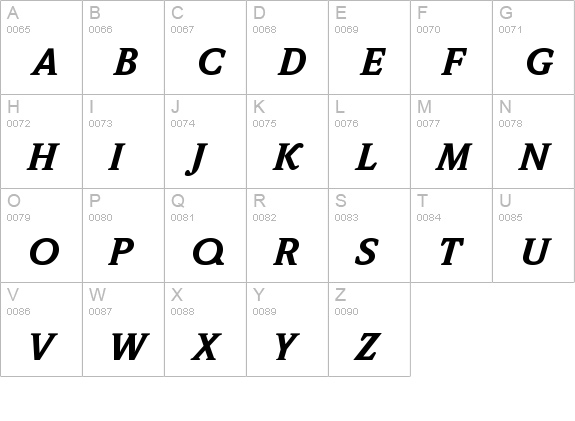
WeidemannEF-BlackItalic is a visually stunning and elegant font that exudes sophistication and elegance. Its unique and bold design is perfect for adding a touch of luxury and style to any project. This font features a captivating italic style that adds a sense of movement and flair to your text. The carefully crafted curves and slanted letterforms create a sense of dynamism and energy, making your words come alive on the page. WeidemannEF-BlackItalic is not only aesthetically pleasing but also highly legible, ensuring that your message is conveyed effortlessly. Its clear and well-defined letterforms make it easy to read, even at smaller sizes, making it ideal for various design projects. One of the best features of WeidemannEF-BlackItalic is that it is freely available to download at FontsMarket.com. This means that you can enjoy the beauty and versatility of this font without any cost. Whether you are a professional designer or simply someone who appreciates the art of typography, this font is a must-have in your collection. With WeidemannEF-BlackItalic, you have the freedom to unleash your creativity and bring your designs to life. Its bold and captivating style will make your text stand out and leave a lasting impression on your audience. So why wait? Download WeidemannEF-BlackItalic today from FontsMarket.com and elevate your designs with this stunning and freely available font.